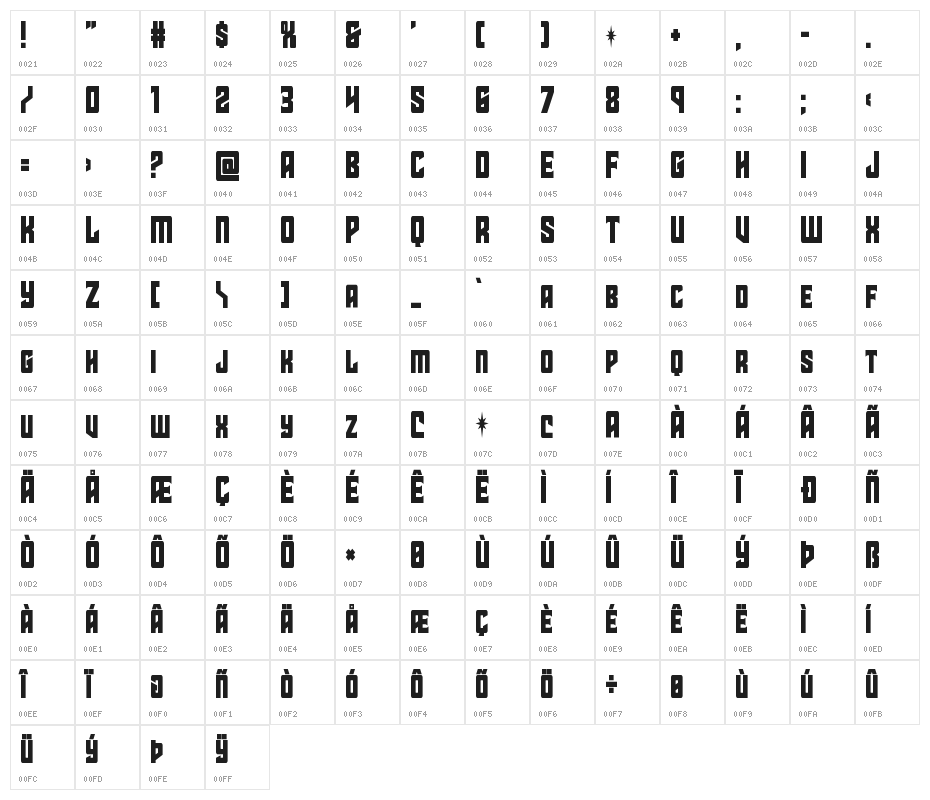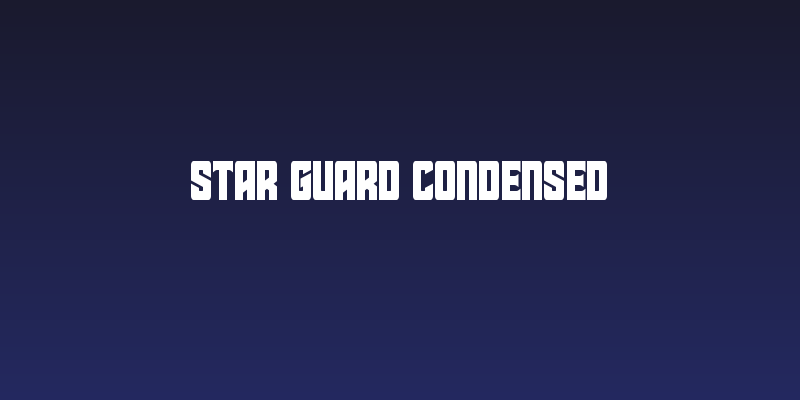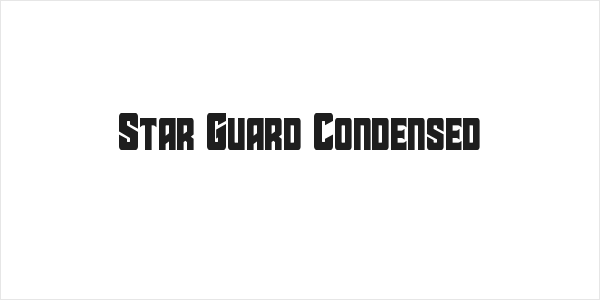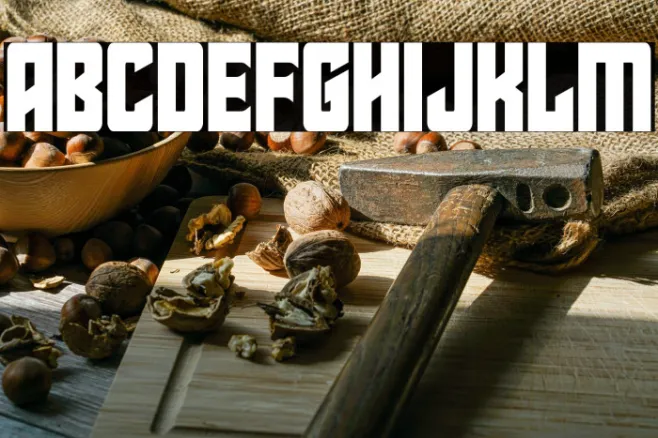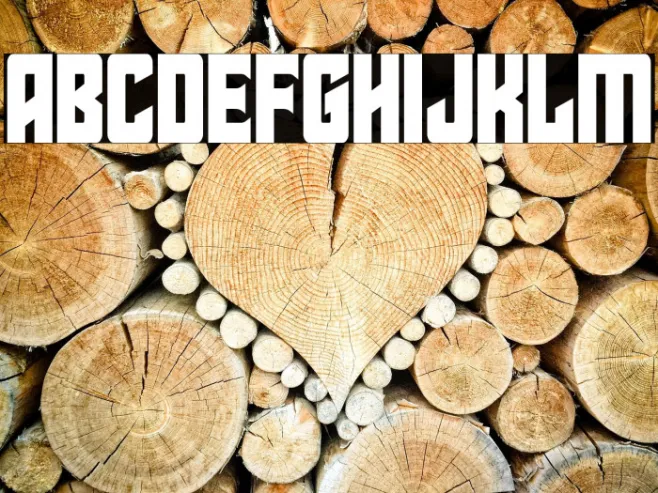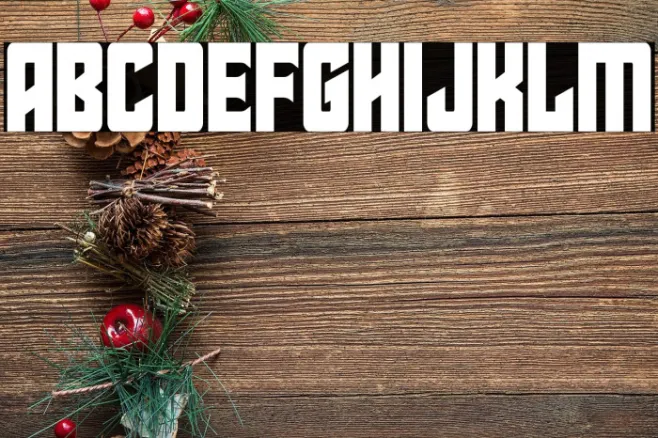
Star Guard Condensed Font
Star Guard Condensed Description
This font features a bold, condensed style with strong geometric shapes and sharp angles. The uppercase letters are prominent and commanding, making a striking visual impact. The design is consistent across both uppercase and lowercase letters, maintaining a uniform appearance. The numerals are equally bold, ensuring readability and emphasis. Special characters are designed with the same boldness, adding a cohesive look to the entire set. The font's condensed nature allows for efficient use of space, making it suitable for attention-grabbing headlines and titles.